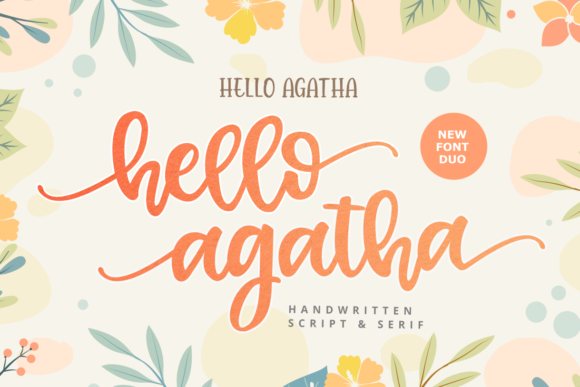
About Hello Agatha Font
Hello Agatha is a delightful font pair with a handy set of illustrations. This duo font consists of a beautiful script and a playful caps serif font. Together or separate they are perfect for t-shirt design, quotes, mugs, bag canvas, greeting cards, branding and much more. The possibilities are endless. This font is PUA encoded which means you can access all of the glyphs and swashes with ease!